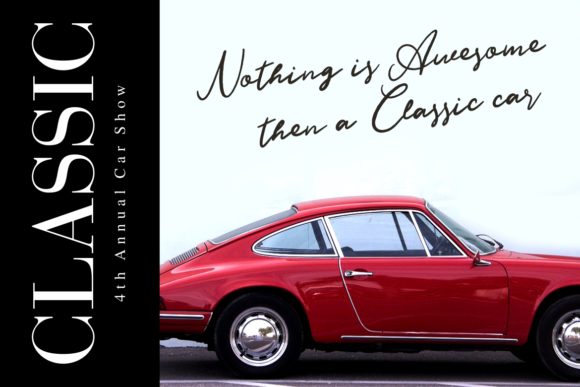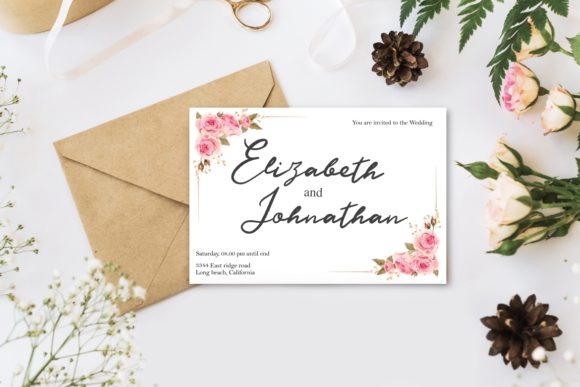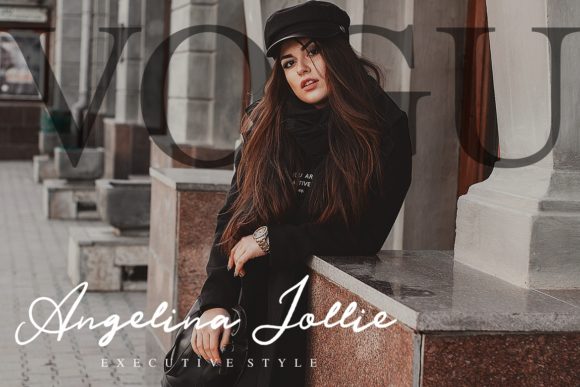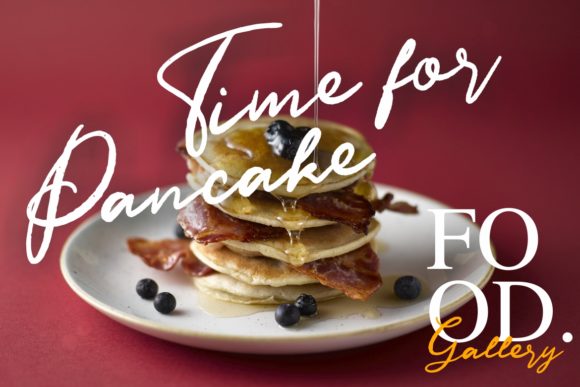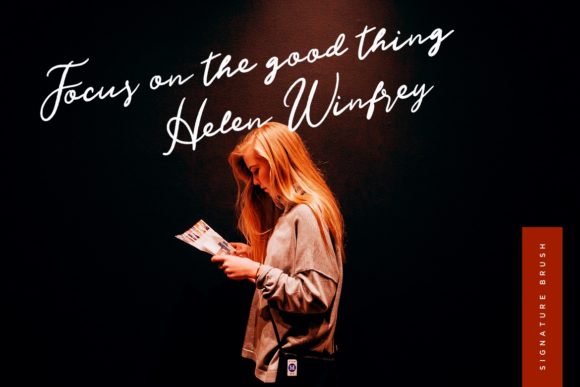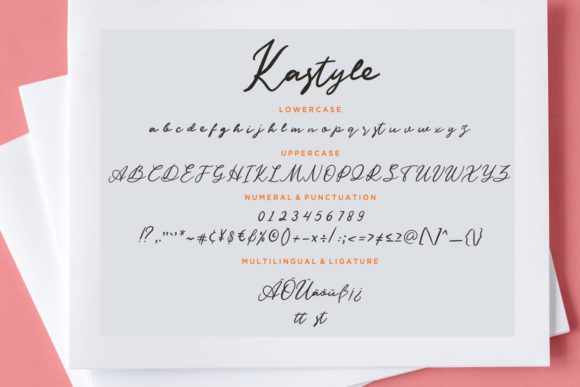
Introduction to Kastyle Font
Kastyle is a cool and sweet handwritten font with a unique flavor.
Use it to turn any design project into a true standout .
Key Features of Kastyle Font
Why Choose Kastyle Font?
Kastyle Font offers exceptional quality and versatility, making it a valuable addition to your design toolkit. Whether you’re creating for personal projects or commercial use, Kastyle Font delivers professional results.